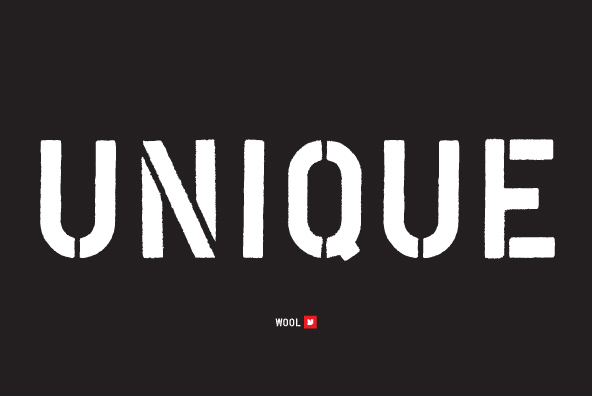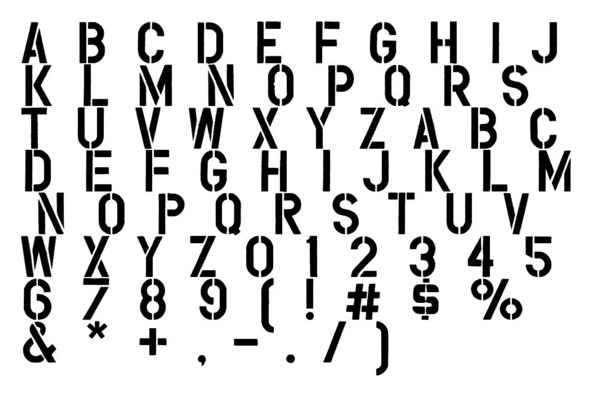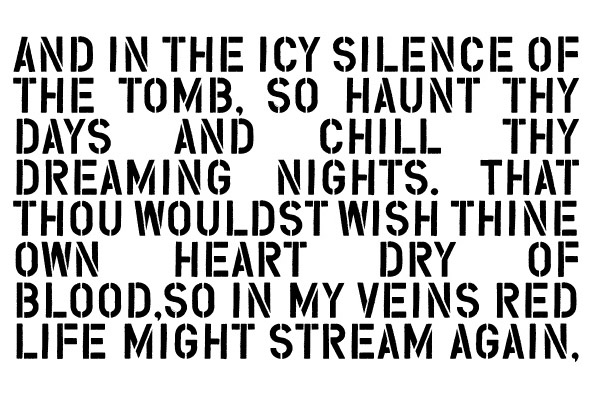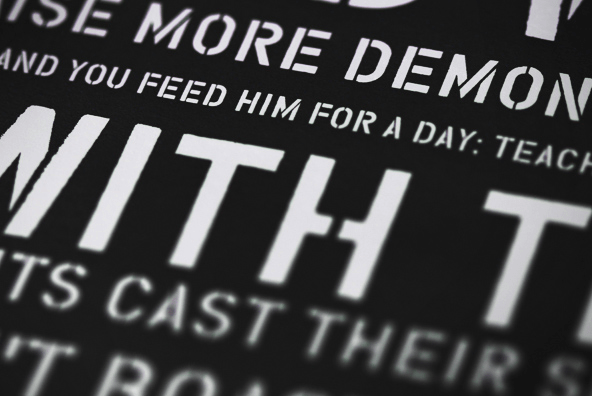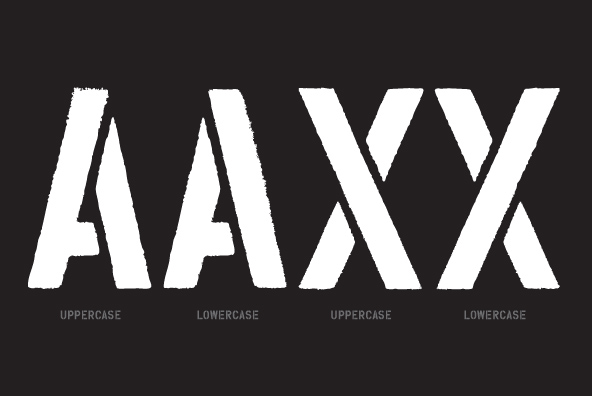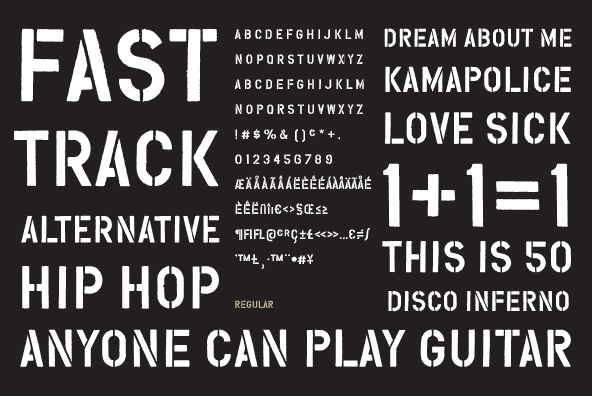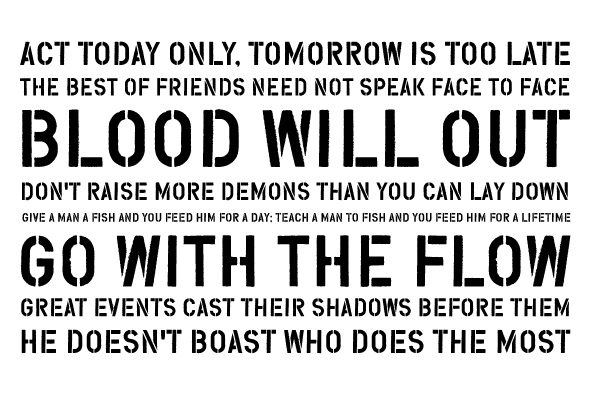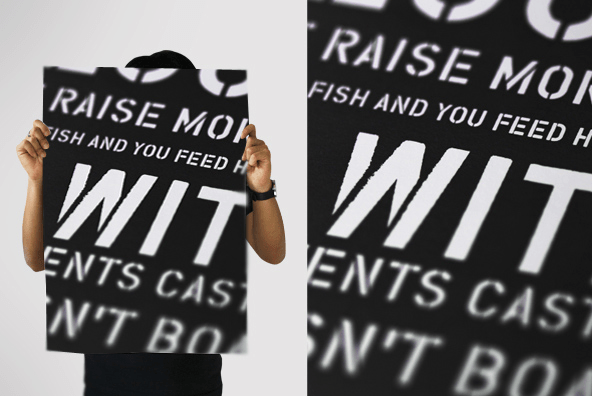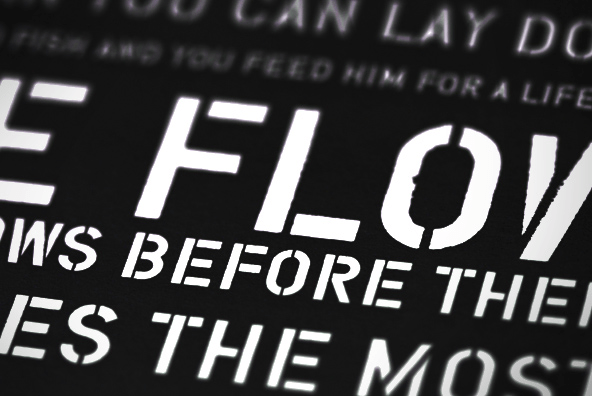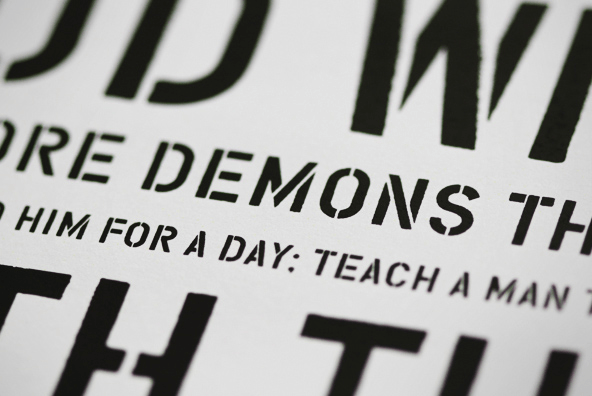
YWFT Wool
Font Family by YouWorkForThem
It's another beautiful day in the corps, and YWFT Wool is just the sort of rough-house, dirty stencil font you're gonna need to execute the toughest textual statements. It's raw, mean, distressed, and ready for combat. Use this font when you need to say the stuff that needs to be said with authority. YWFT Wool was released in opentype format in 2009. Designed exclusively by Michael Cina and YouWorkForThem.